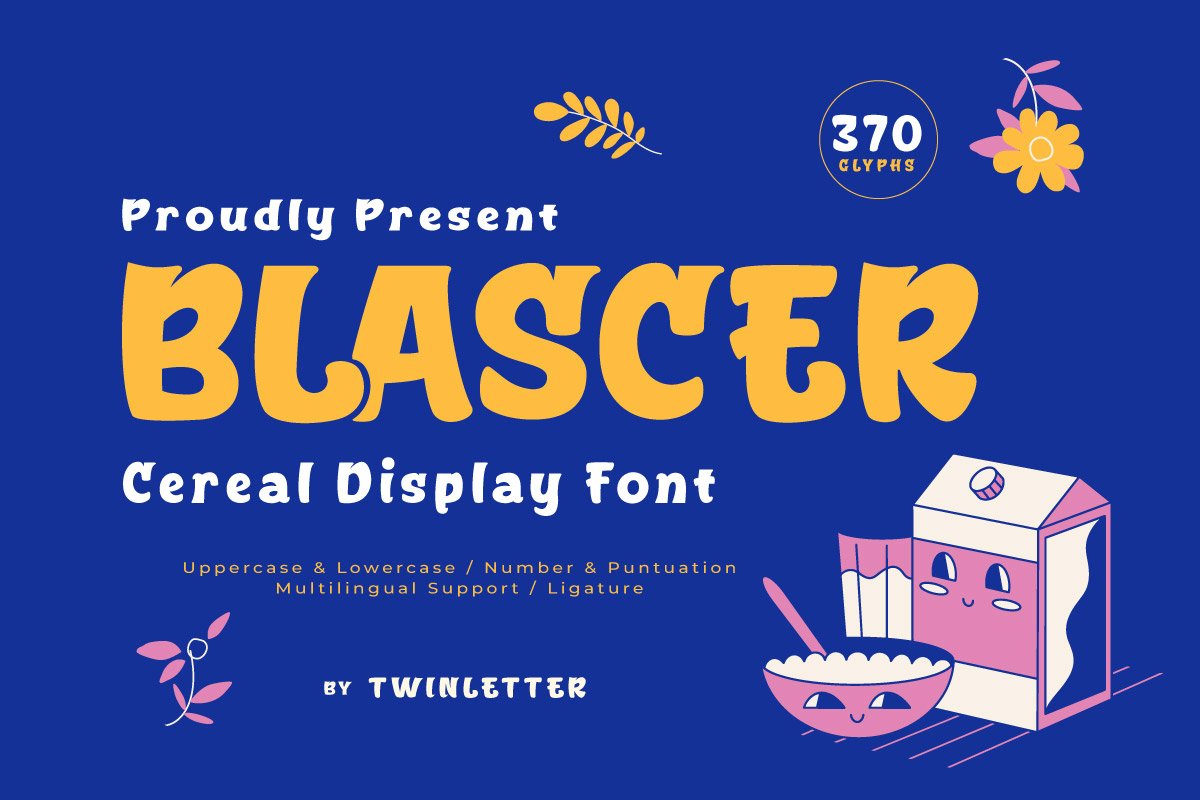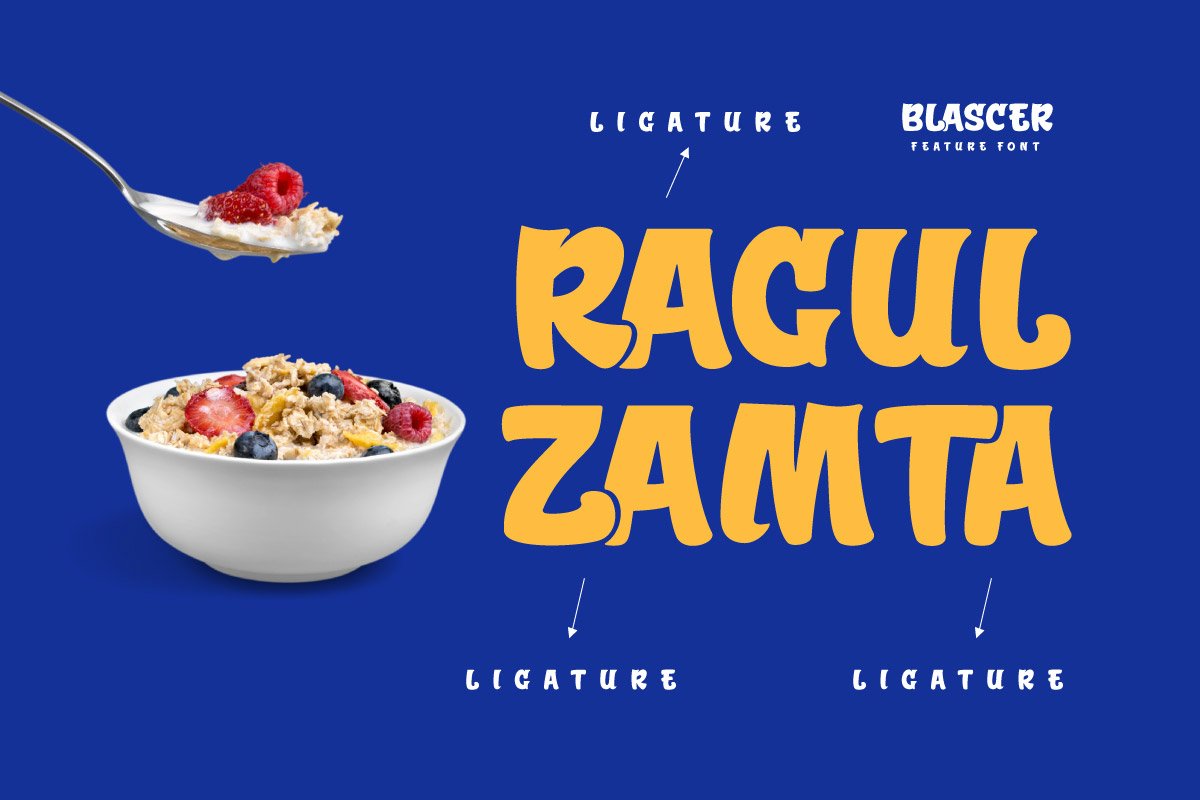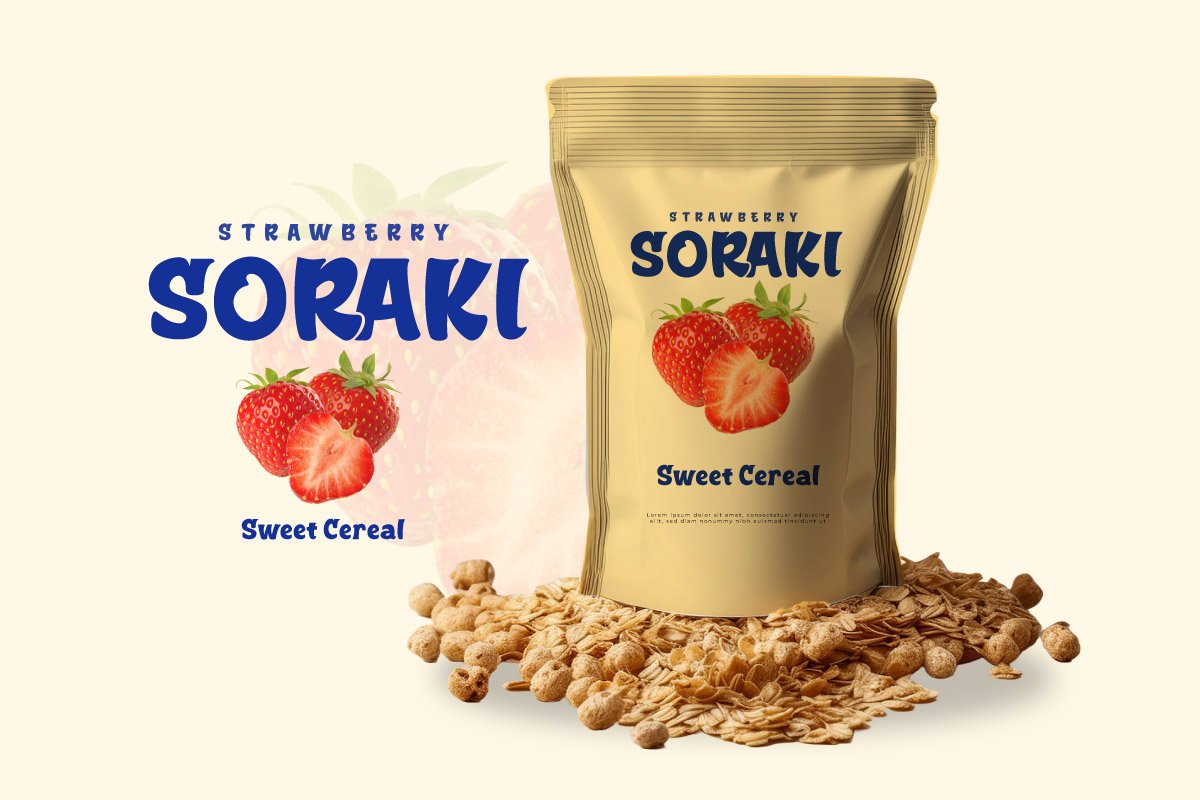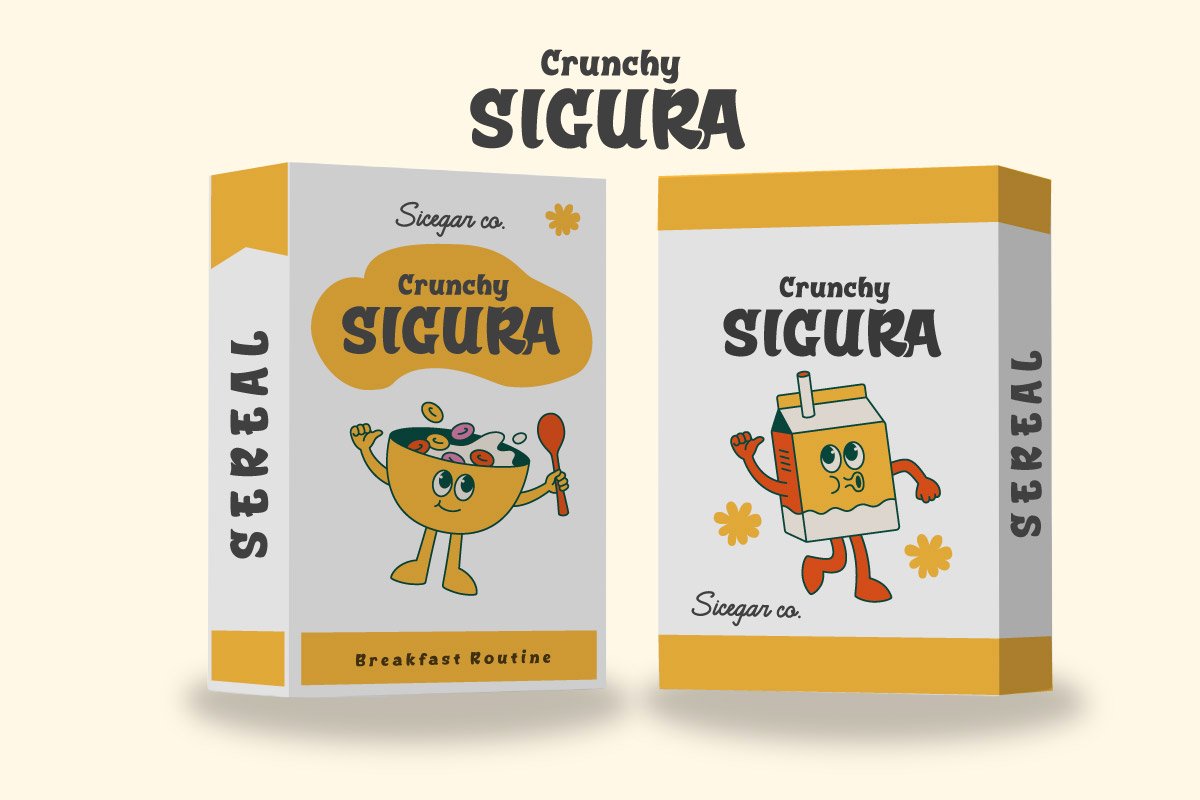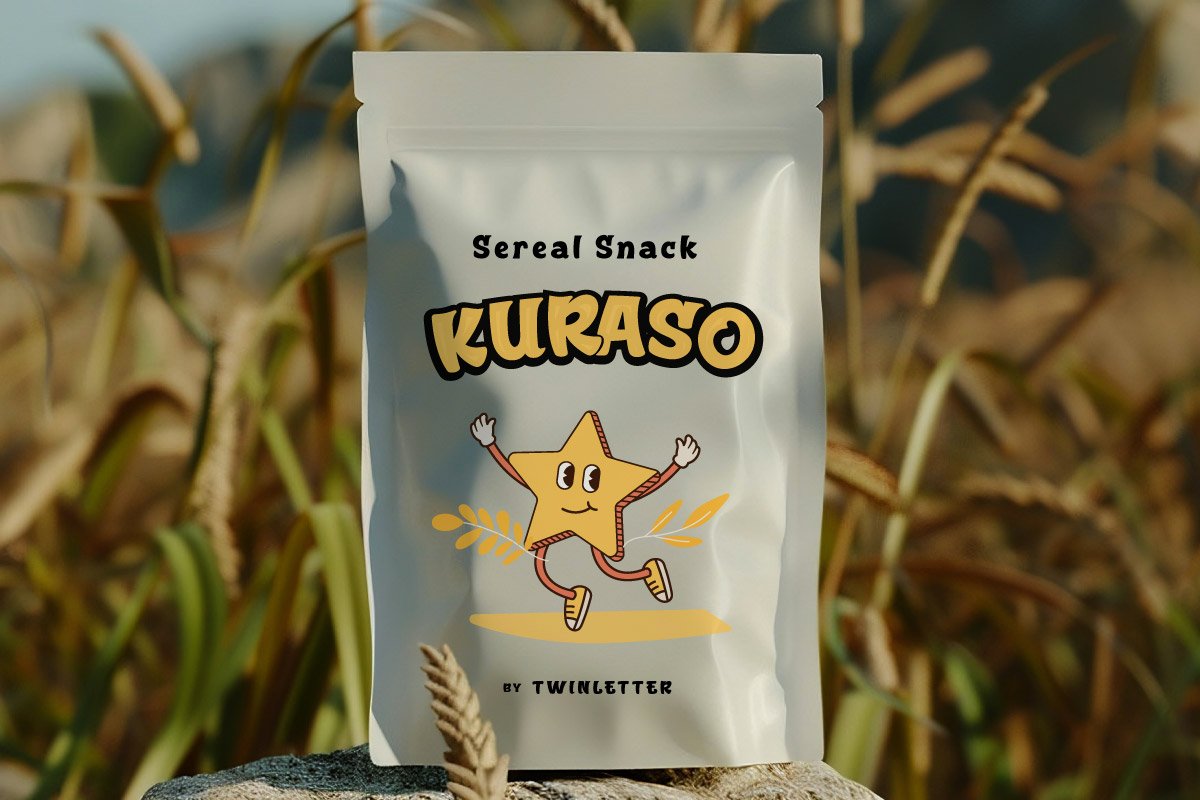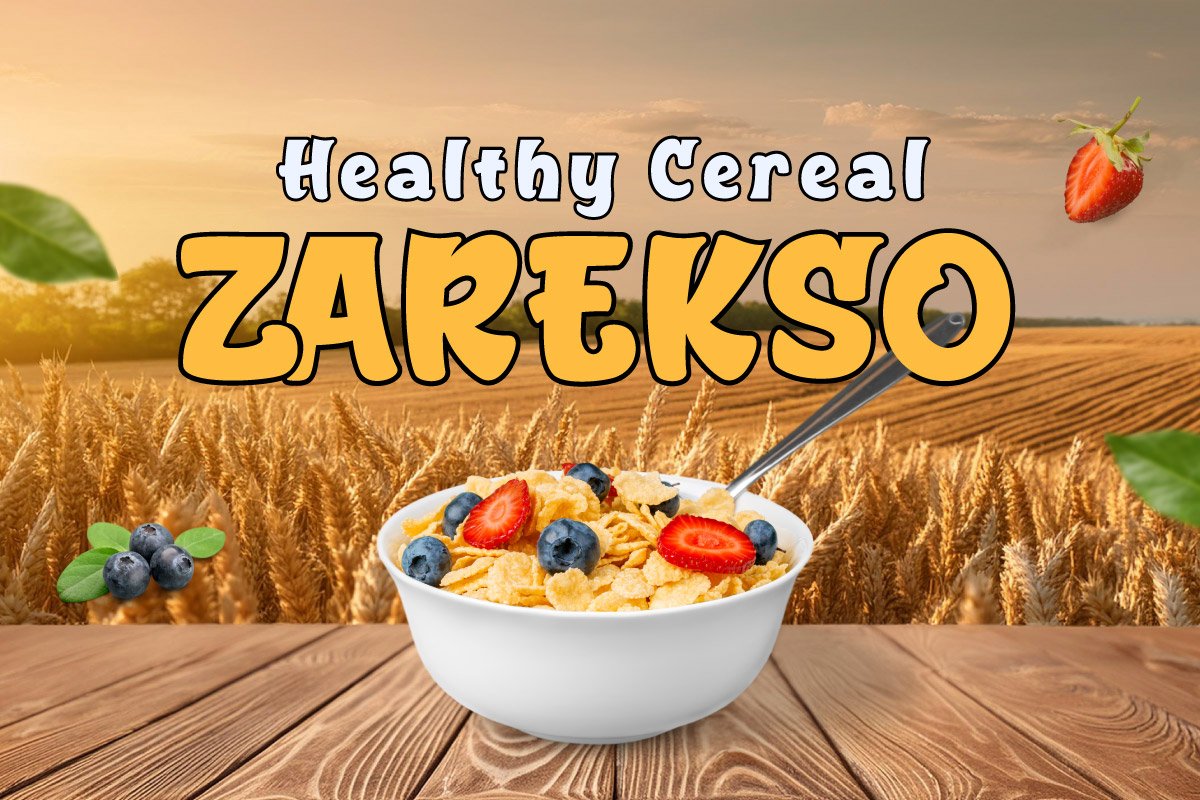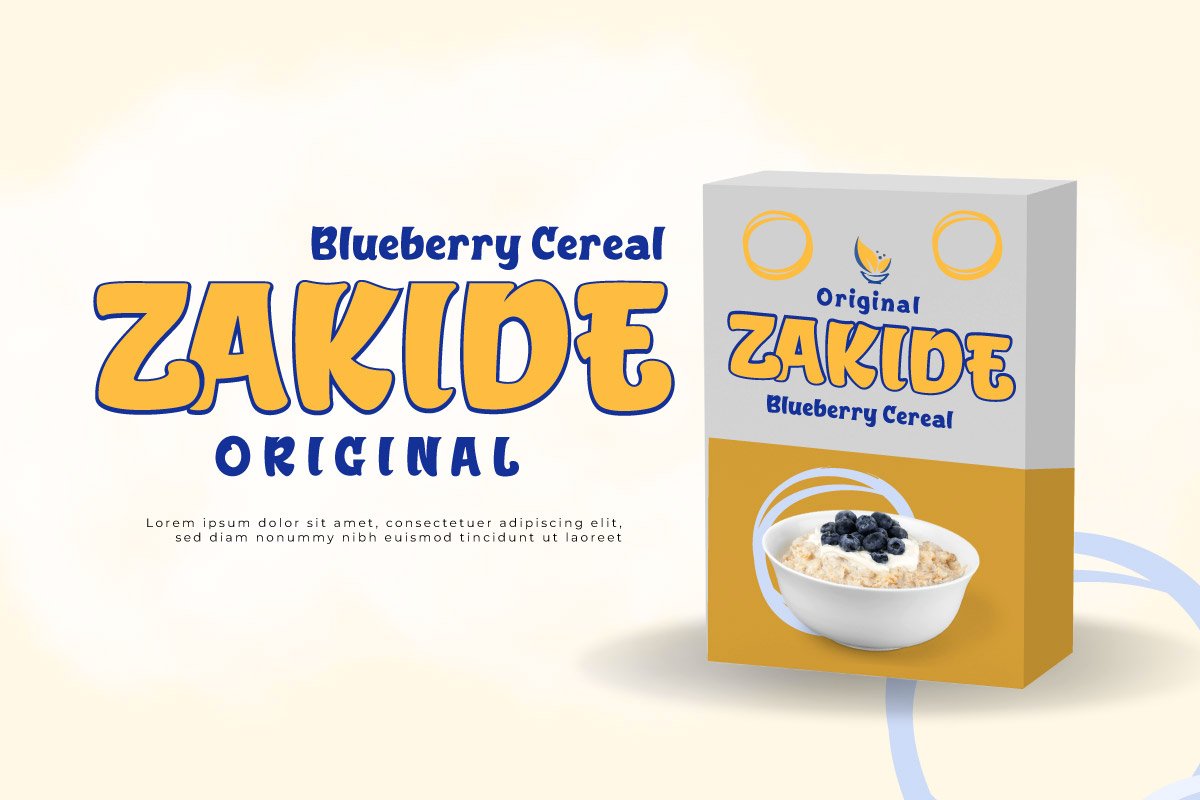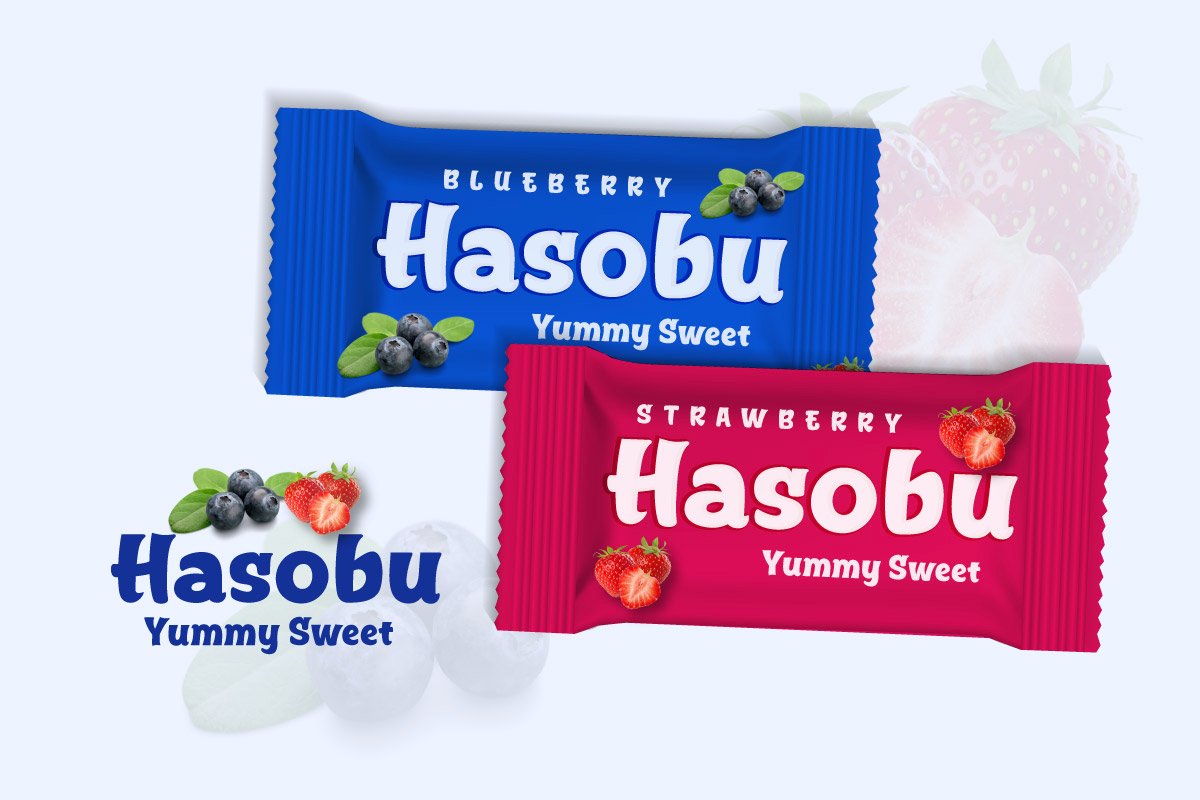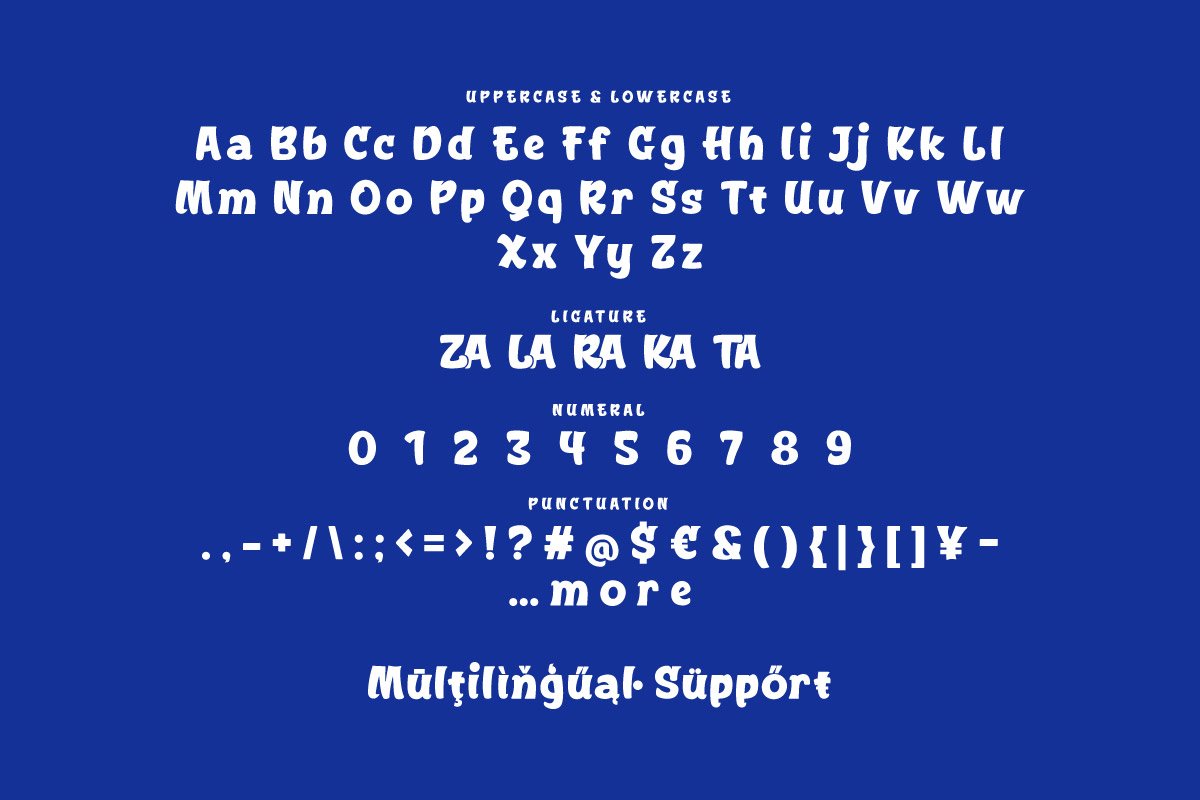
Blascer – Display Font
Bring a burst of fun and energy to your designs with Blascer, the ultimate Cereal Display Font. Perfect for breakfast cereal packaging, playful advertisements, children’s books, and more, Blascer features bold, rounded letters that capture the excitement of the morning meal. Each character is carefully crafted to evoke the cheerful spirit of colorful cereal boxes, making your text look vibrant and inviting.
The playful style and whimsical elements of Blascer add a sense of joy and excitement to your projects, making it ideal for creating eye-catching posters, engaging social media graphics, and delightful product labels. With its lively design and easy readability, Blascer ensures your messages stand out and bring a smile to every viewer. Elevate your branding and design projects with the fun and dynamic Blascer, the perfect font for adding a touch of playful energy.